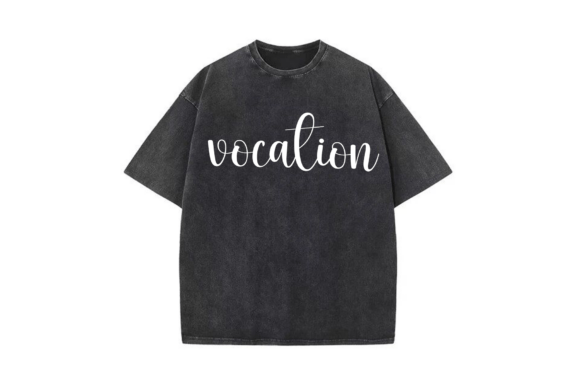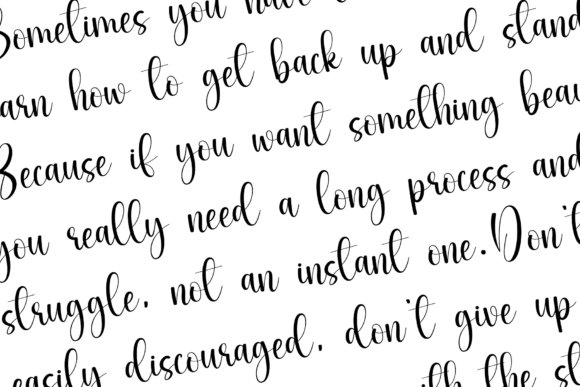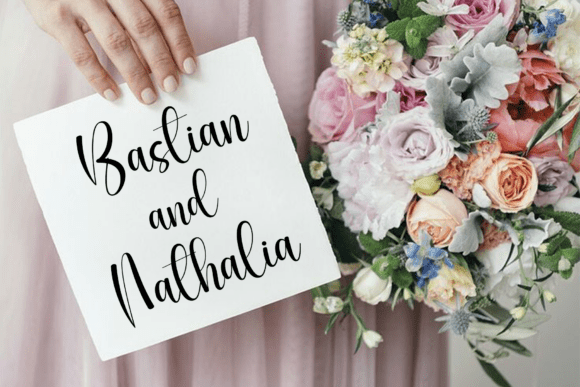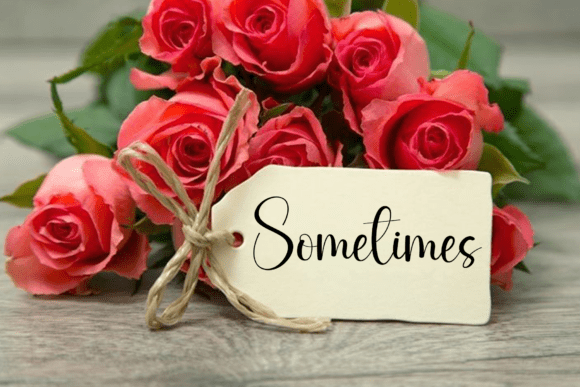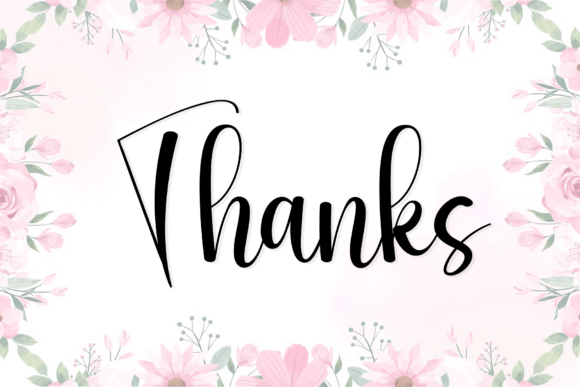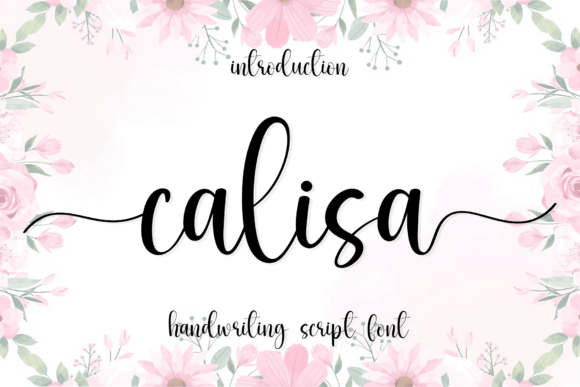
The Elegance of Calisa Font: A Designer’s New Best Friend
I still remember the time I was working on a wedding invitation project, and my client asked for a font that would make the invitation look elegant and sophisticated. I scoured the internet, tried out countless fonts, but nothing seemed quite right. That was until I stumbled upon Calisa Font. It was love at first sight! 💕
Calisa is a stylish and incredibly elegant script font that has become my go-to for any design project that requires a handwritten touch. In this article, I’ll share my experience with Calisa, its features, and how to make the most of it in your designs.
An Honest Review of Calisa Font
What I Love About Calisa ✨
• 💫 Elegant and sophisticated: Calisa exudes luxury and refinement, making it perfect for high-end designs.
• ✅ Versatile: It works beautifully on wedding invitations, thank you cards, quotes, greeting cards, logos, business cards, and more.
• 🌈 Highly legible: Despite its script nature, Calisa is surprisingly easy to read, even in smaller sizes.
• 🎨 Beautiful swashes and ligatures: Calisa comes with a range of swashes and ligatures that add a touch of elegance to your designs.
While Calisa is an amazing font, there are a few things to keep in mind:
• 🤔 Limited use for body text: Calisa is best used for headings or titles, as it may not be suitable for longer blocks of text.
• ⚠️ May not work well with all design styles: Calisa’s elegance may clash with more modern or minimalist design styles.
The Backstory of Calisa Font
Calisa Font was designed by a team of typographers who wanted to create a font that would evoke the elegance and sophistication of handwritten calligraphy. Inspired by classic script fonts, Calisa was crafted to be both beautiful and legible. Today, it’s a popular choice among designers and crafters who want to add a touch of luxury to their designs.
Q: Is Calisa Font suitable for body text?
A: While Calisa is a beautiful font, it’s best used for headings or titles. It may not be suitable for longer blocks of text.